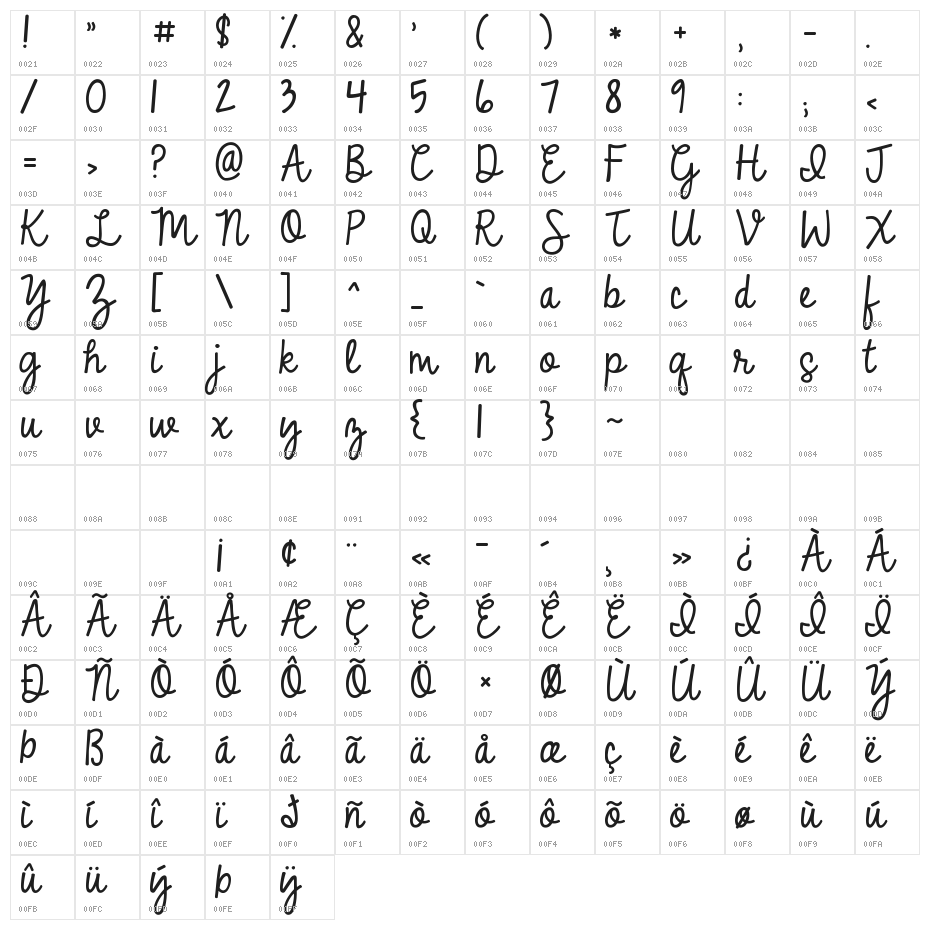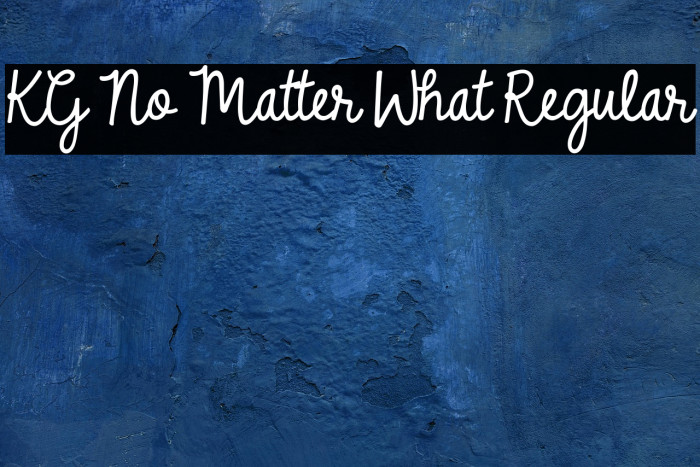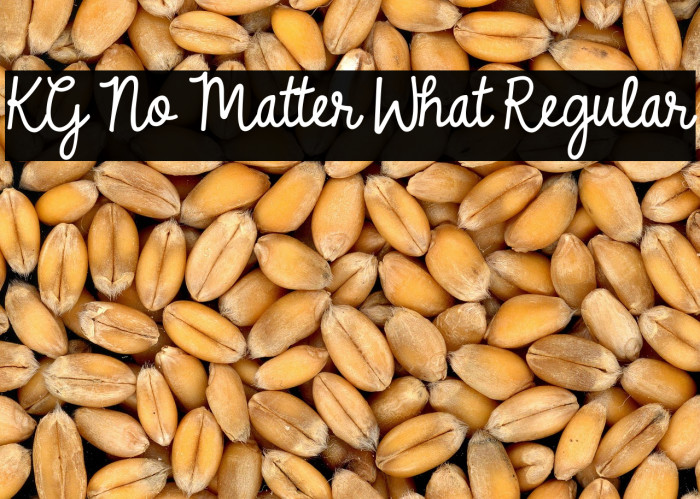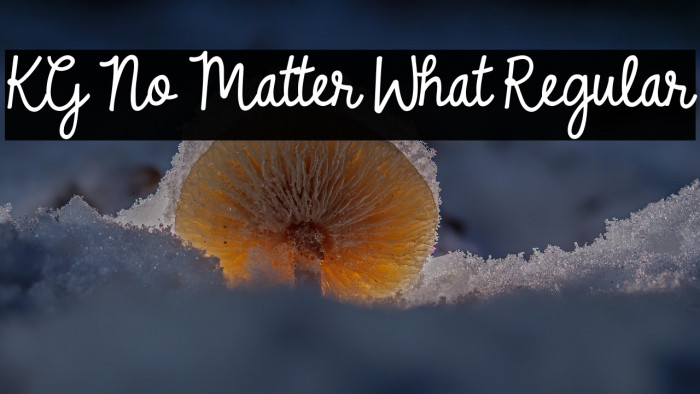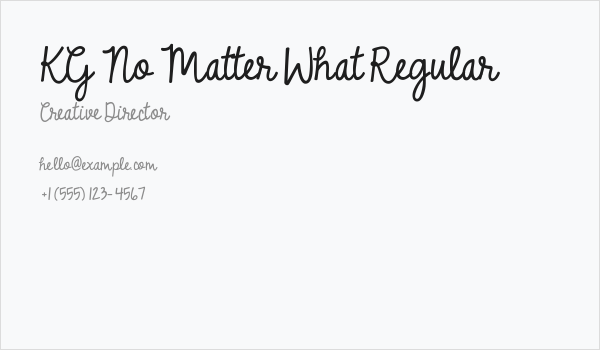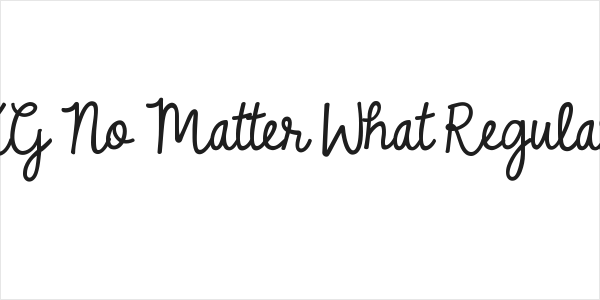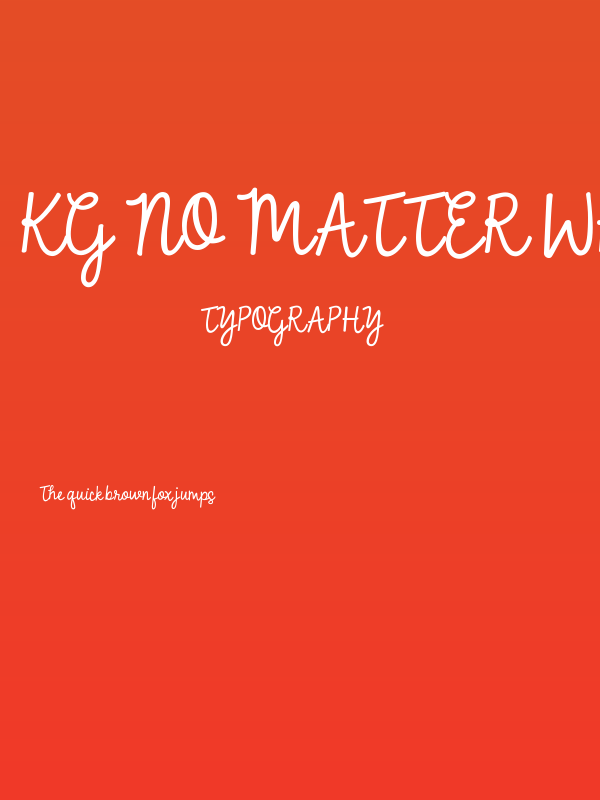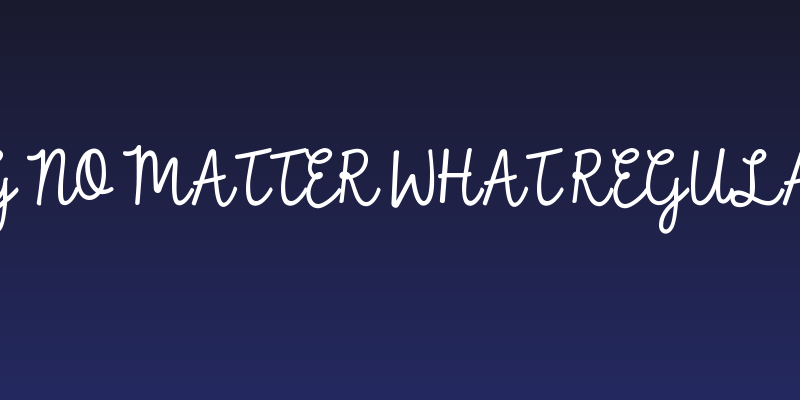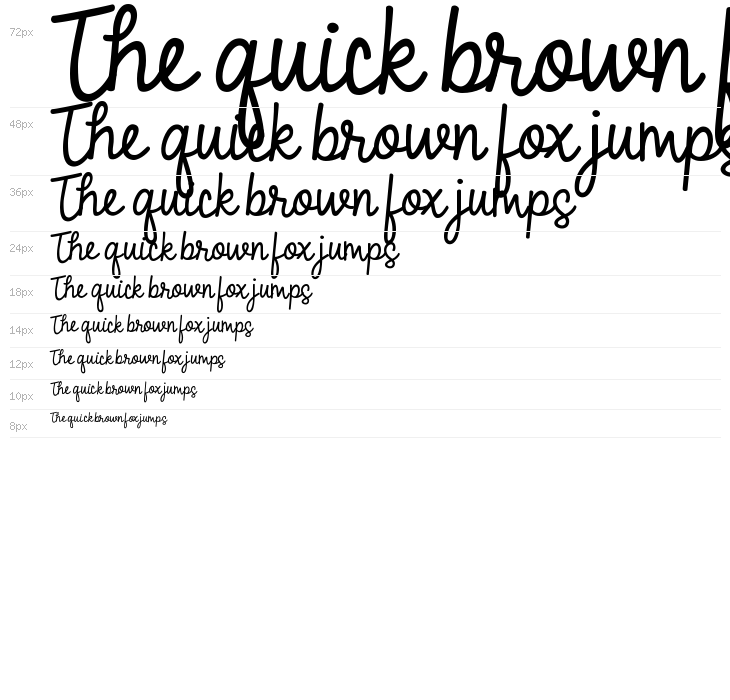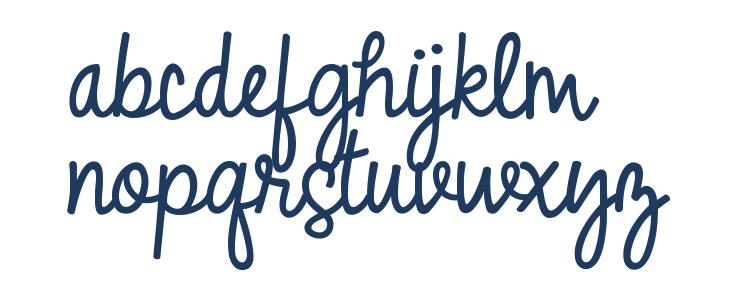
KG No Matter What Regular Font
KG No Matter What Regular Description
This font features a playful and casual handwritten style, characterized by its fluid and connected letterforms. The uppercase letters maintain a consistent height, while the lowercase letters exhibit a slight slant, enhancing the informal feel. The numerals are bold and clear, ensuring readability. Special characters are creatively integrated, maintaining the overall whimsical aesthetic. The strokes are consistent in width, providing a uniform appearance across all characters. This font exudes a friendly and approachable vibe, making it suitable for a variety of creative projects.